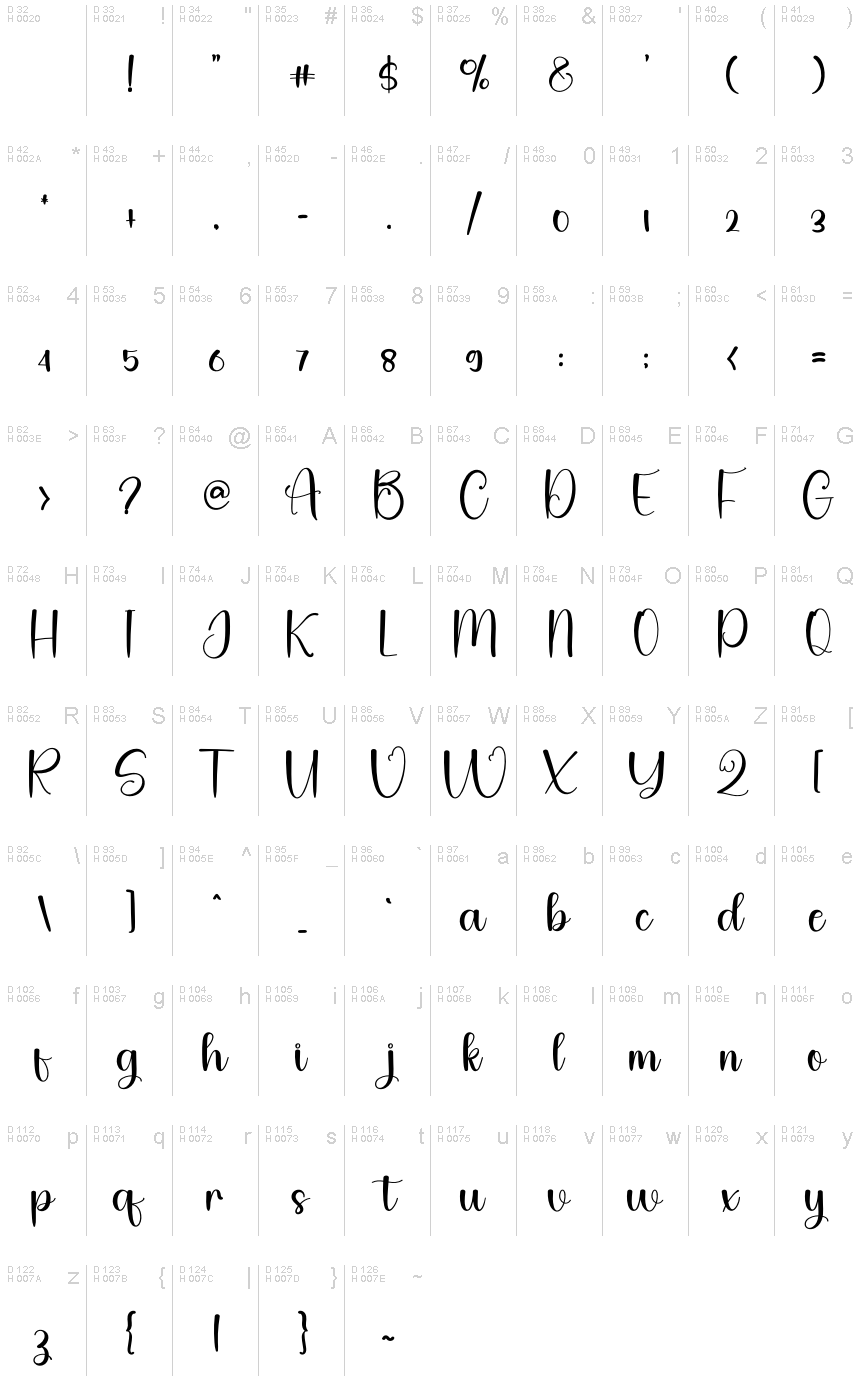
Black History
Black History, from the creative studio of FreshtypeINK, is a handwritten font that exudes personality and warmth. Its flowing lines and organic feel give it an engaging human touch, perfect for designs that aim to be personable and inviting. The script-like quality of Black History invites a sense of intimacy, as if each word were personally scribed with care.
This font's charm lies in its casual elegance, making it suitable for a variety of applications where a touch of personal flair is desired. It could effortlessly grace the pages of intimate invitations, heartfelt greeting cards, or lend an artisanal look to branding materials. As versatile as it is beautiful, Black History bridges the gap between professional design and the authenticity of handcrafted artistry.